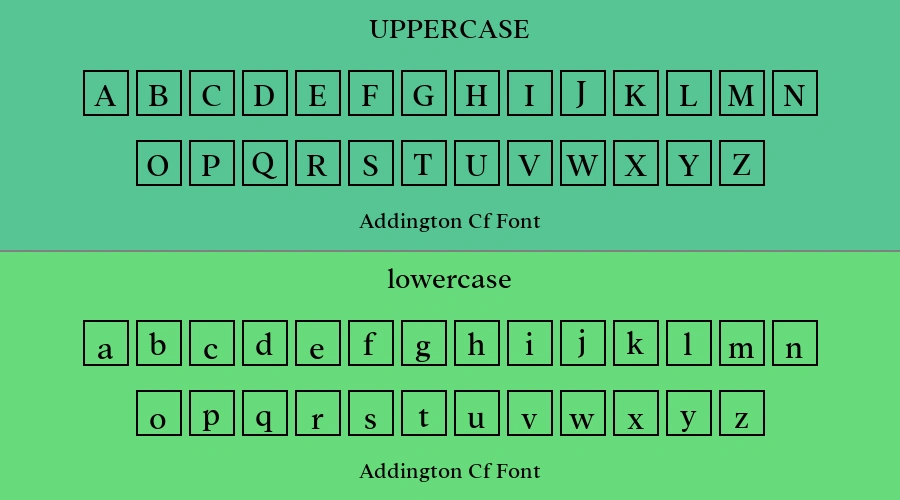
About Addington Cf Font
Addington Cf Font embodies typographic excellence through its masterful combination of convex bowls and technical precision. Created for engineering specs, this typeface delivers exceptional durability and brand power across all applications. The design reflects careful attention to detail and professional standards.
Advanced capabilities include distinctive expressive energy and versatile decorative sets, giving designers creative control. When used in advertisements, Addington Cf Font exhibits remarkable detail preservation. The harmonious balance between corner treatment and brand personality sets this typeface apart.